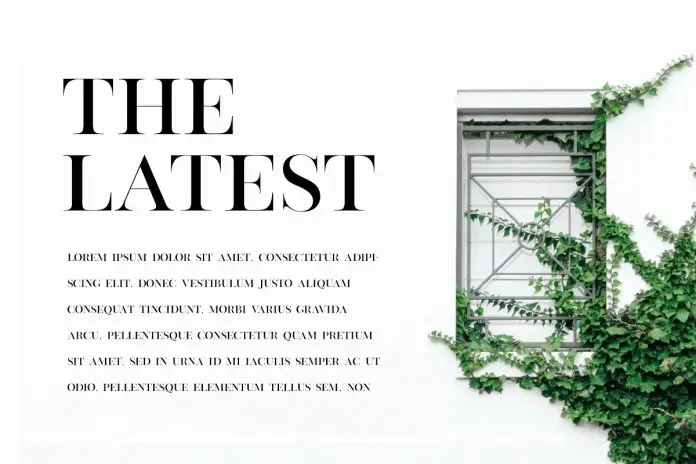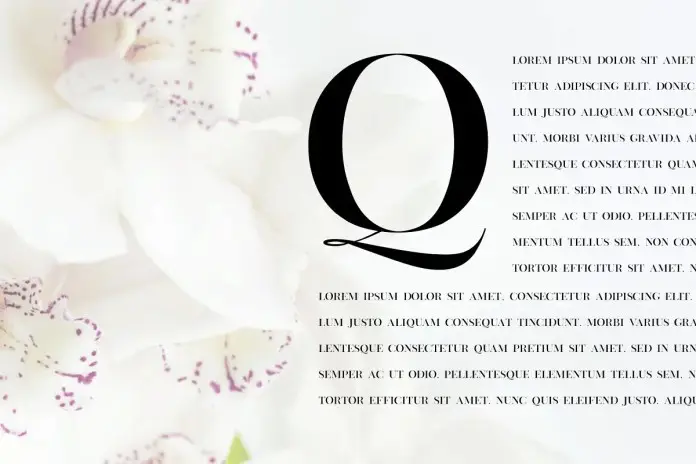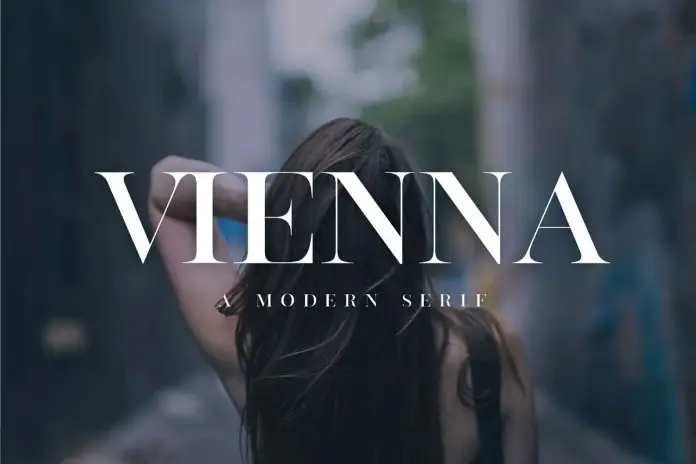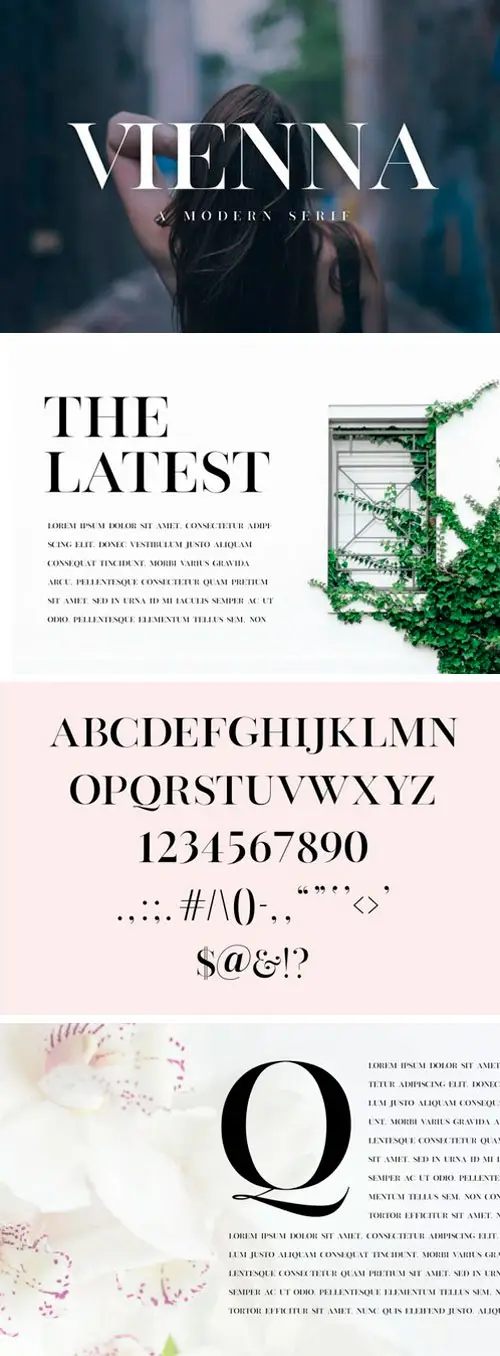
Vienna Serif Font
The Vienna Serif Font is a beautifully crafted typeface that combines elegance with readability. Perfect for a variety of applications, this font is ideal for branding, logos, web design, and print materials.
• Classic serif design for a timeless look
• Multiple weights for versatile usage
• Clear and legible characters
Use the Vienna Serif Font for elegant branding projects, sophisticated editorial layouts, or any design that requires a touch of class.